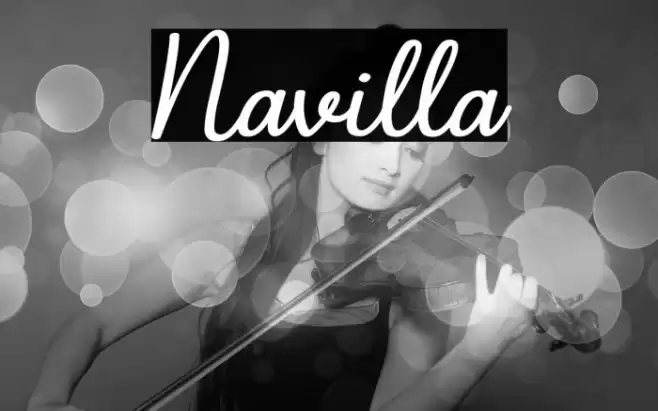
Navilla Font
Navilla Description
This font features a flowing, cursive style with a handwritten appearance. The uppercase letters are elegantly connected, while the lowercase letters maintain a consistent slant, enhancing the script-like quality. The numerals and special characters are designed to match the fluidity of the letters, creating a cohesive look. The strokes are smooth and rounded, giving the font a friendly and approachable feel. It is well-suited for projects that require a personal touch, such as invitations, greeting cards, or branding materials.
A flowing, cursive font with a handwritten style from Uncategorized fonts.
- Proposed Projects: Ideal for invitations, greeting cards, branding, and personal projects.
- Use Case: Logos, Headlines, Invitations